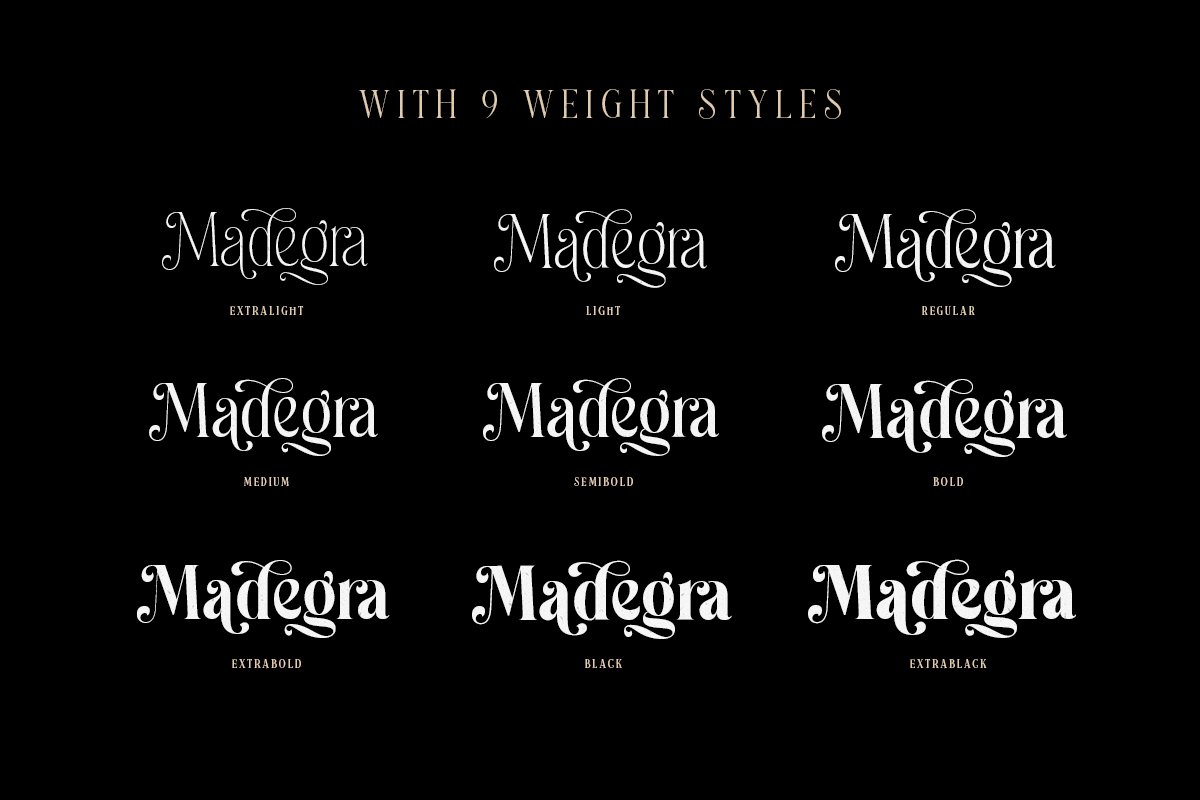
About the Madegra Serif Weight Styles Font
Introducing, Madegra, An Elegant Serif, This typeface has many alternates with swashes that can make your lettering / logotype become more interesting, The clean and neat of a serif combined with the swirl swashes makes this font even more unique, Especially since this family has 9 weight styles which you can choose according your needs!This font perfectly made to be applied especially in logo, and the other various formal forms such as invitations, labels, logos, magazines, books, greeting / wedding cards, packaging, fashion, make up, stationery, novels, labels or any type of advertising purpose
Features :uppercase & lowercasenumbers and punctuationmultilingualligaturesalternatesswashesPUA encoded9 Weight StylesWe highly recommend using a program that supports OpenType features and Glyphs panels like many of Adobe apps and Corel Draw, so you can see and access all Glyph variations